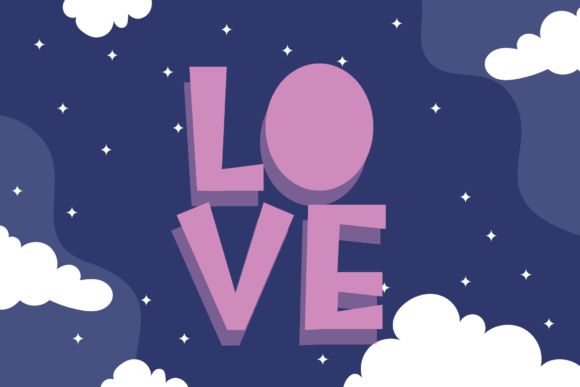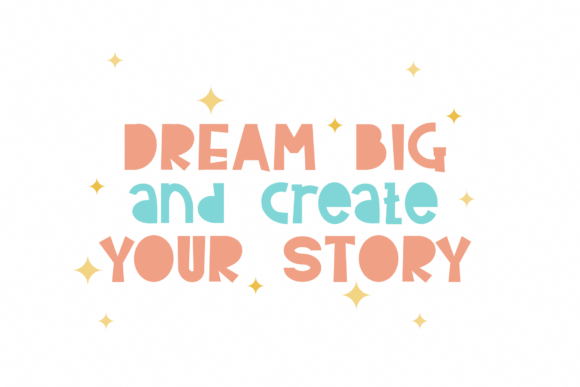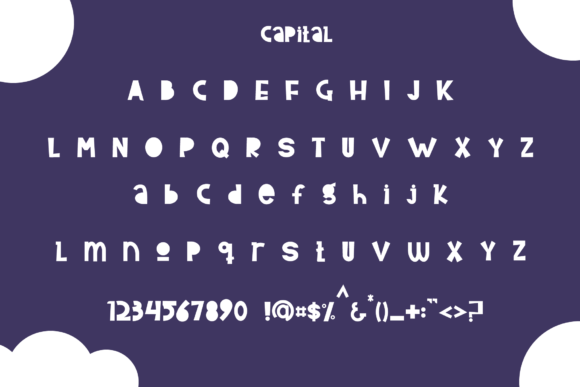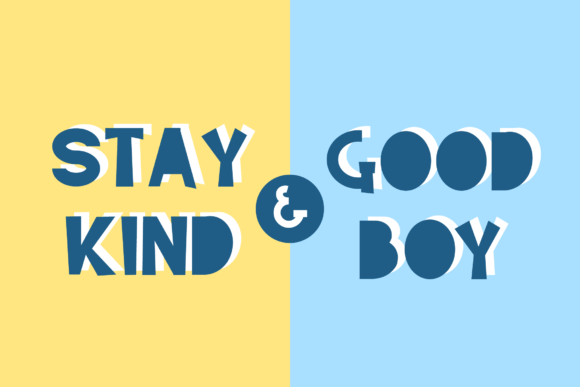
Give Your Designs a Hero’s Welcome with the Home Coming Font
Have you ever been brainstorming a creative idea, only to have it stuck in your head for hours because you can’t quite bring it to life on paper? We’ve all been there, and it’s frustrating. But what if you had the perfect tool to help you turn your vision into a stunning reality? Enter the Home Coming Font, a bold and playful display font that’s sure to make your designs stand out.
Whether you’re a seasoned designer or a DIY enthusiast, the Home Coming Font is the perfect addition to your toolkit. Its simple yet trendy design makes it versatile enough to use in a variety of projects, from Instagram posts to calligraphy scripts. With the Home Coming Font, you’ll be able to bring your creative ideas to life in a whole new way, and that’s something to come home to.
Key Features of “Home Coming Font”
- Font Family: Home Coming Font is a modern sans-serif font designed for various digital and print media applications.
- Unique Characteristics: Home Coming Font features a unique blend of modern and minimalist design elements, with clean lines, geometric shapes, and subtle texture effects.
- Character Set: The font includes a comprehensive character set, including uppercase and lowercase letters, numerals, punctuation marks, and various special characters.
Home Coming Font Review
First off, I love the Home Coming Font ✨ – it’s really versatile and has a great retro vibe to it. The font is super easy to read, even at smaller sizes, which is a must for me when it comes to choosing fonts for my designs. The font also looks amazing in both digital and print formats, which is a huge plus. The variety of weights and styles available also makes it super easy to customize to fit my design needs.
One thing that could be improved is the font’s suitability for certain types of content. For example, I found that it doesn’t work so well for body text in long-form articles or documents, as it can be a bit overwhelming. Additionally, the font’s design can sometimes make it difficult to distinguish between similar-looking characters, which can be a problem in certain contexts ⚠️.
Overall, I’d say that the Home Coming Font is a solid choice for designers who are looking for a fun, retro-inspired font to add some personality to their designs. However, it may not be the best choice for every project, and it’s definitely worth considering the potential limitations before using it.
- Works well for titles, headings, and short-form content
- Great for digital and print formats
- Easy to customize with a variety of weights and styles
- Might not be suitable for body text in long-form articles or documents
- Can be difficult to distinguish between similar-looking characters
For a more professional look, use the font in combination with other design elements, such as shapes and graphics.
For a more creative look, use the font in combination with other design elements, such as brushes and effects.
For a more polished look, use the font consistently throughout your document.
Tips for Getting the Most Out of Home Coming Font
Use the font in bold or italic styles to add emphasis and visual interest.
Pair the font with a contrasting color to make it stand out.
Experiment with different font sizes to create a dynamic visual hierarchy.
Cambria
Cambria is a serif font that is designed for readability and clarity. It is particularly suitable for body text and is often used in academic and professional settings. Compared to Home Coming Font, Cambria is more formal and elegant, making it a better choice for documents and presentations that require a professional tone.
Playfair Display is an elegant and luxurious script font that is perfect for adding a touch of sophistication to designs. It is often used for titles and headings and is particularly suitable for luxury brands and high-end products. Compared to Home Coming Font, Playfair Display is more ornate and luxurious, making it a better choice for designs that require a sense of glamour and refinement.